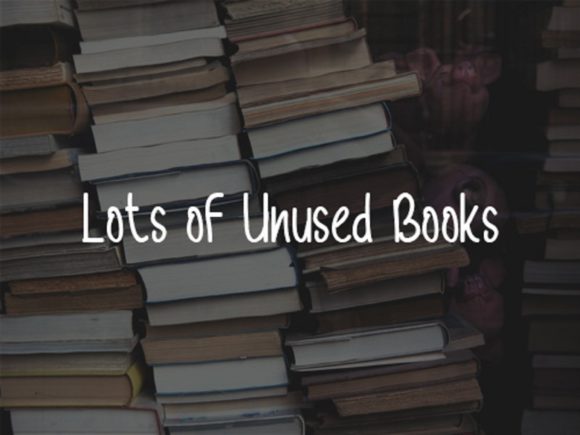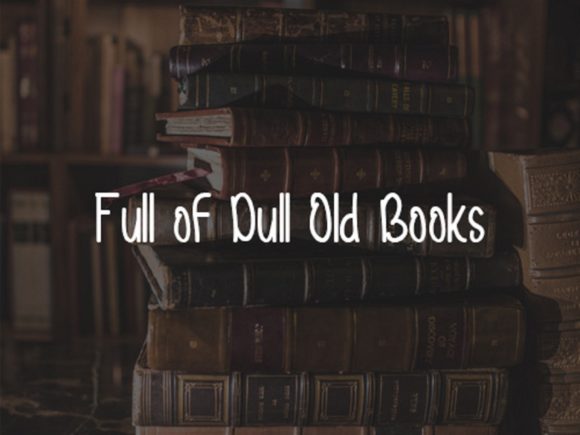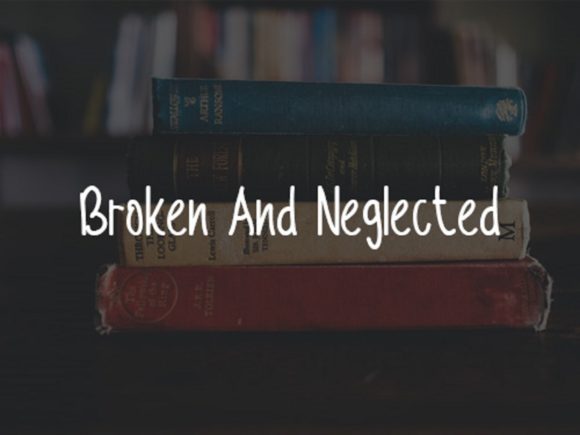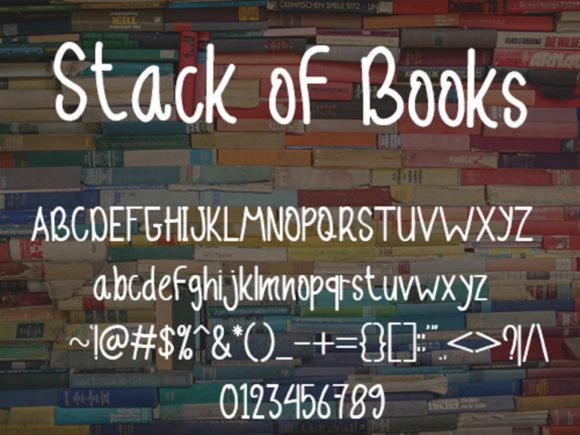
Stack of Books Font
About Stack of Books Font
Stack of Books is a simple and natural handwritten font. Its natural and unique style makes it incredibly fitting to a large pool of designs. The only limit is your imagination!